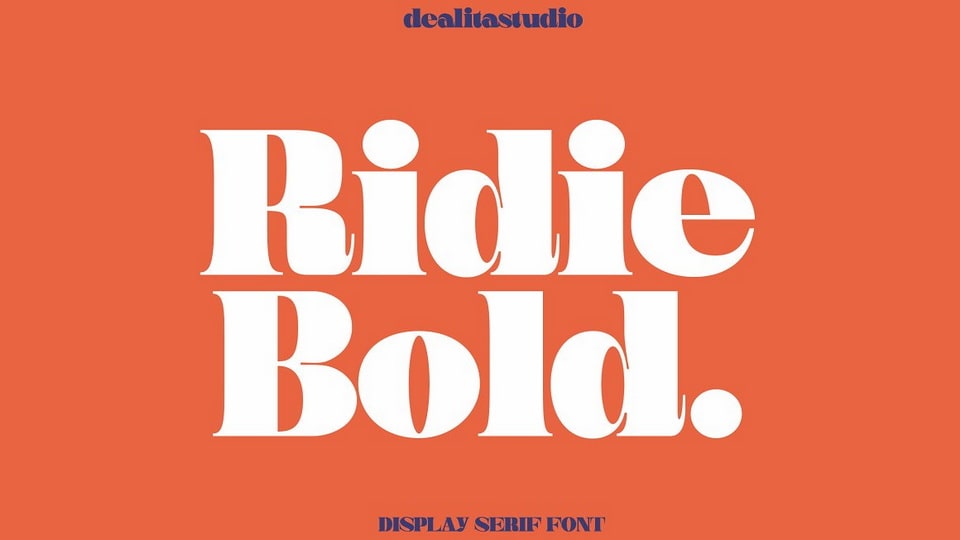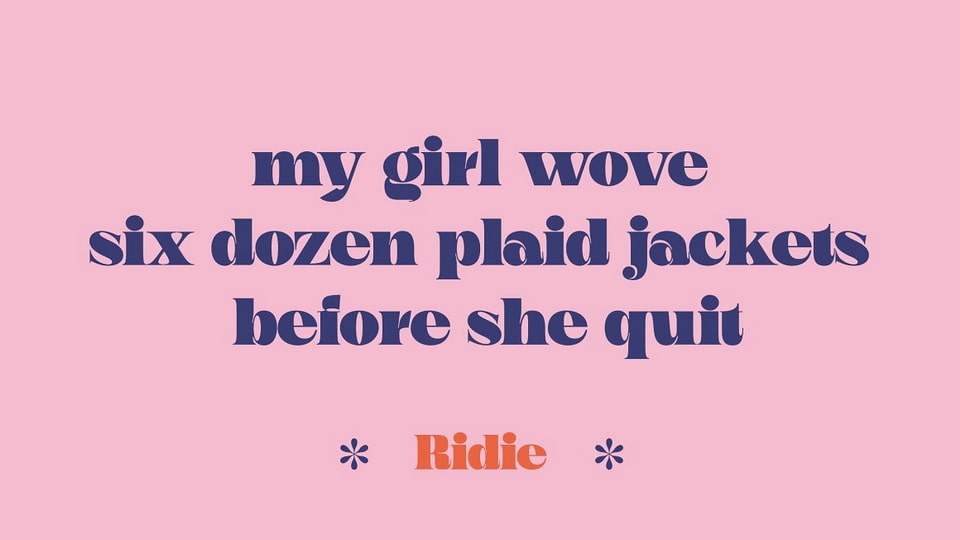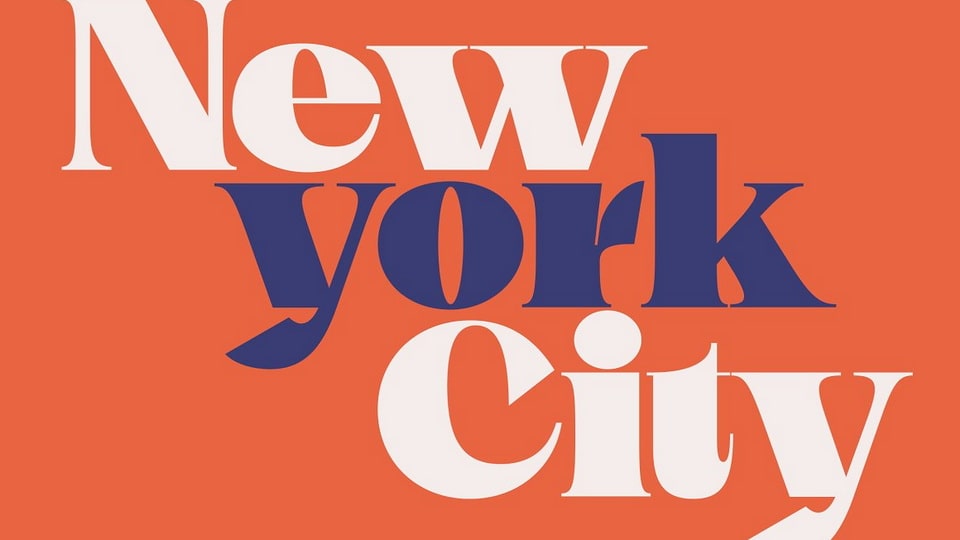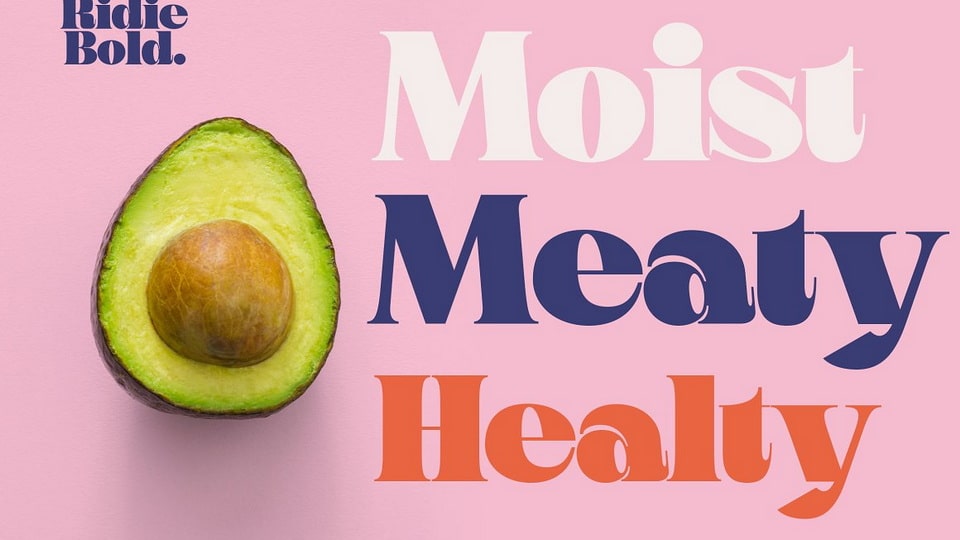
Ridie is a vintage display typeface. Its bold, fun, and playful style is perfect for you who need a pop style in your design.
Ridie font perfectly made to be applied especially in logo, and the other various formal forms such as invitations, labels, logos, magazines, books, greeting/wedding cards, packaging, fashion, makeup, stationery, novels, labels, or any type of advertising purpose.